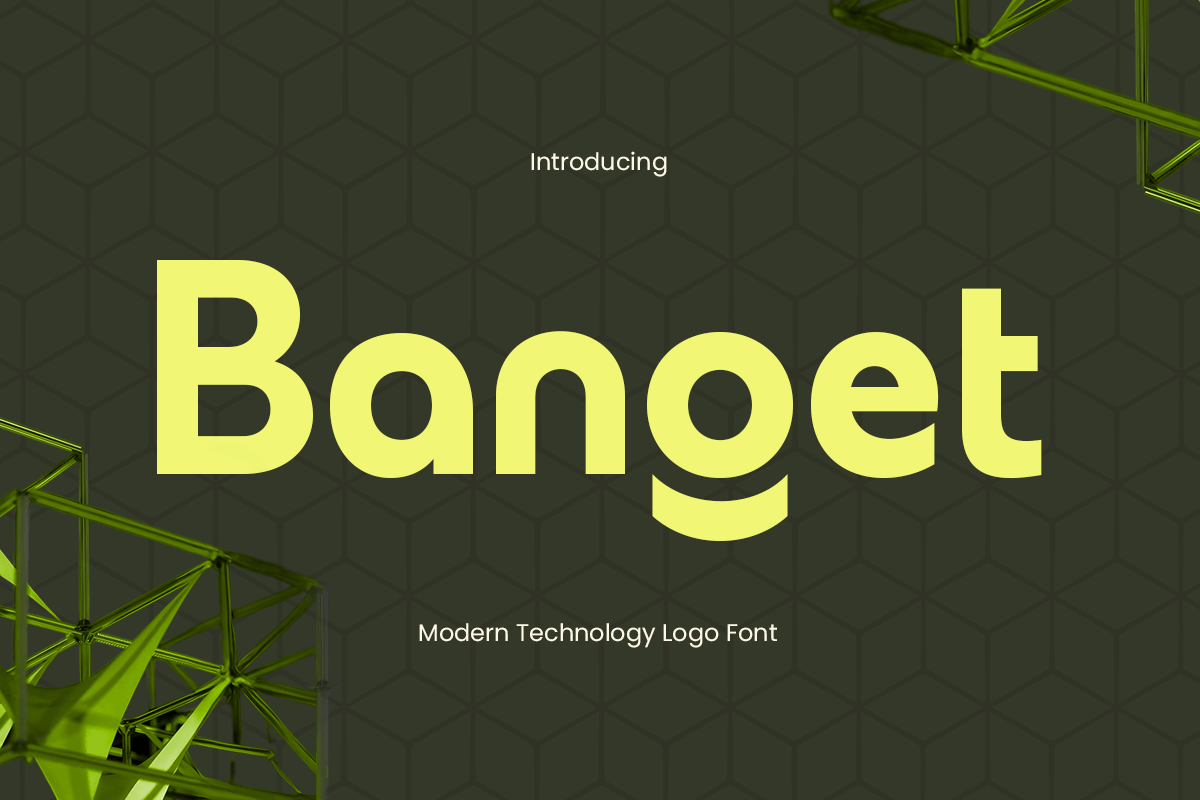
Banget
-Logo FontBanget is a modern technology logo font designed to meet the needs of innovative and tech-focused branding. With its sleek and clean character style, Banget brings a contemporary edge to any project, making it perfect for technology startups, software companies, and digital platforms looking for a bold and professional presence.
Inspired by futuristic aesthetics and a minimal approach, Banget’s structured forms and unique shapes make it stand out in any design application. It’s ideal for logos, headlines, and user interfaces, offering versatility and style that complement modern visual identities effortlessly.
Banget embodies the spirit of progress and sophistication, perfect for brands that want to convey trustworthiness and innovation. Its adaptive features ensure that it shines across both print and digital formats, setting your brand apart with a tech-savvy look.
Banget Modern Technology Logo Font Features:
Unique Technology-Inspired Characters